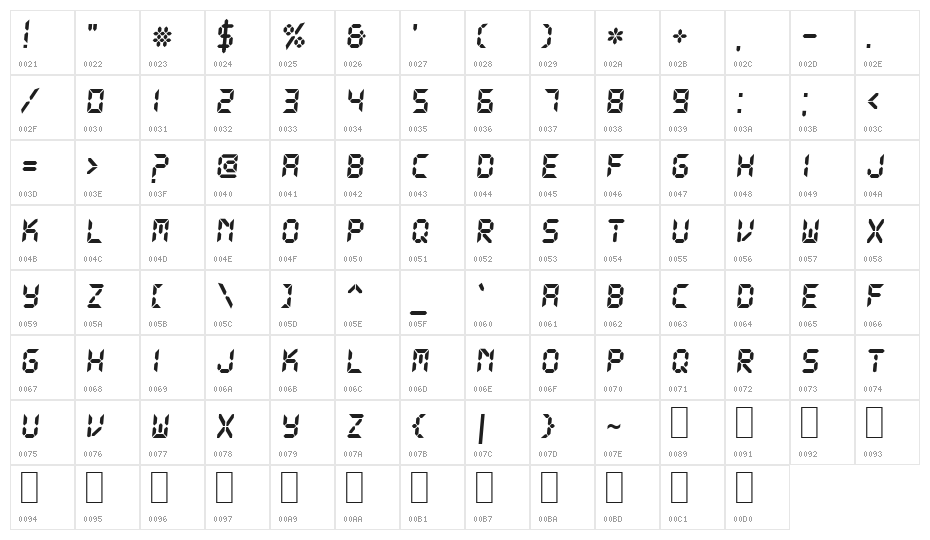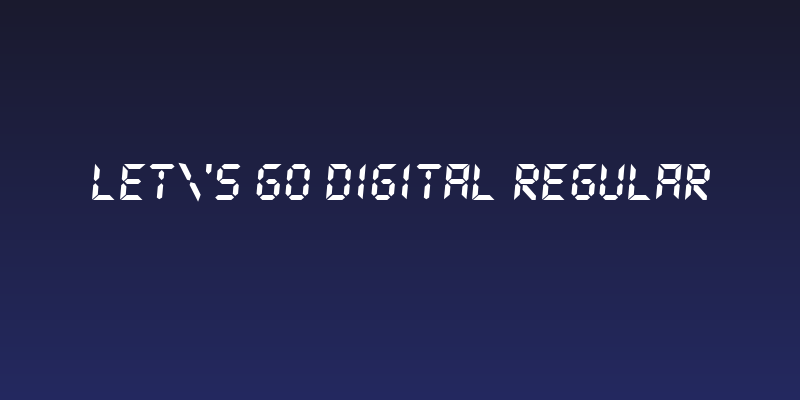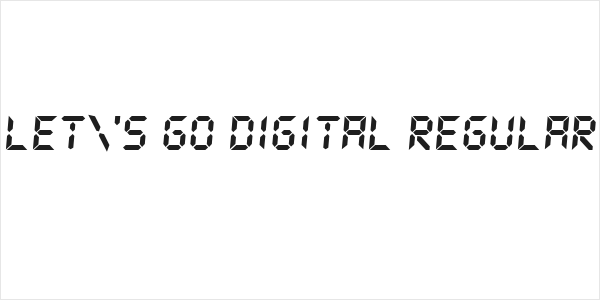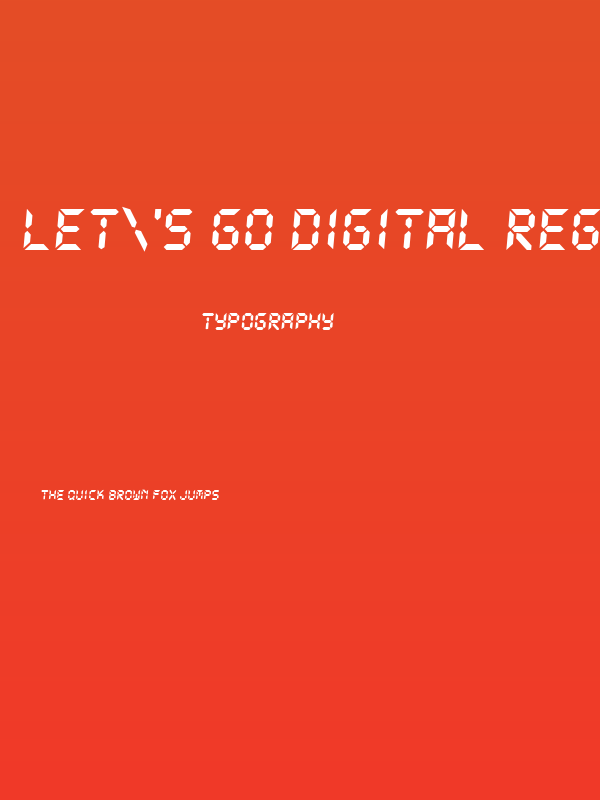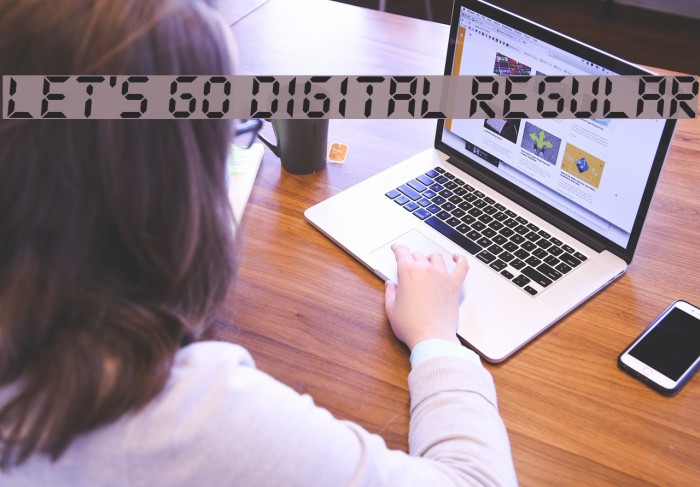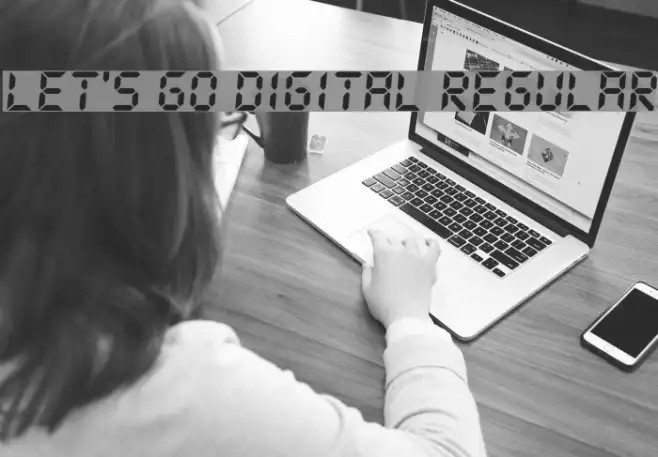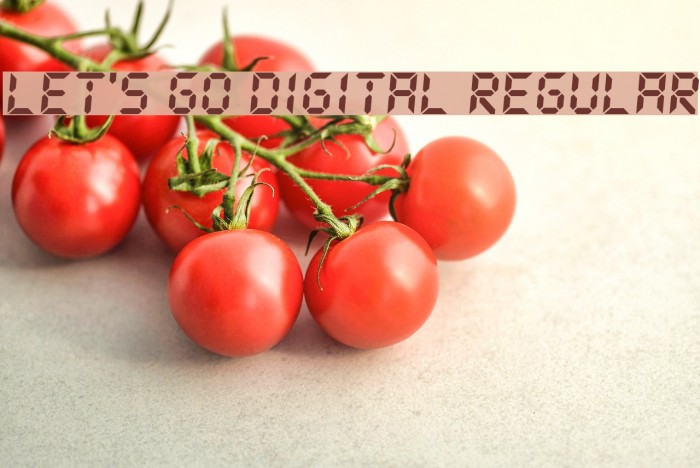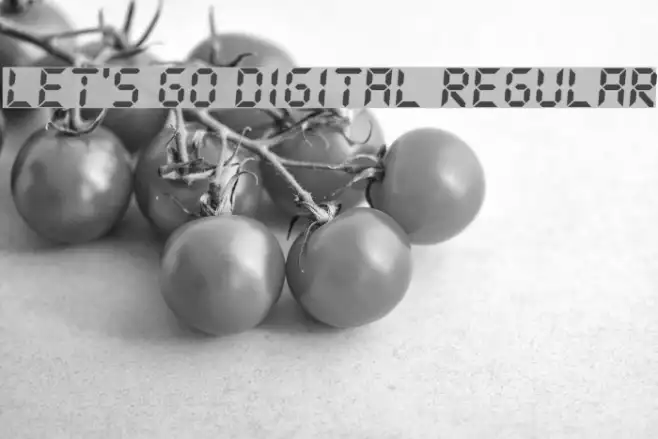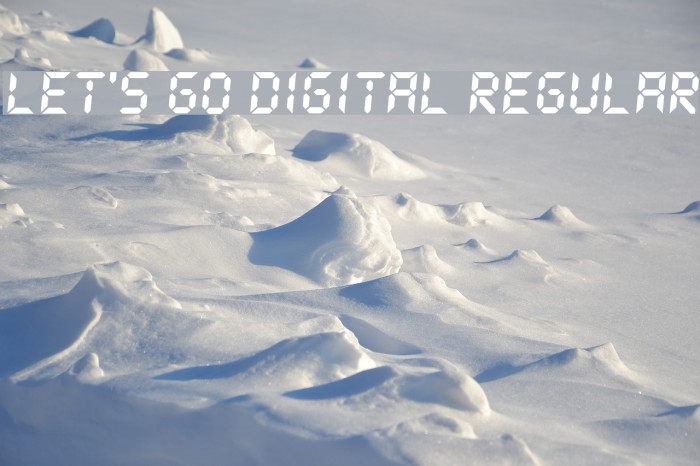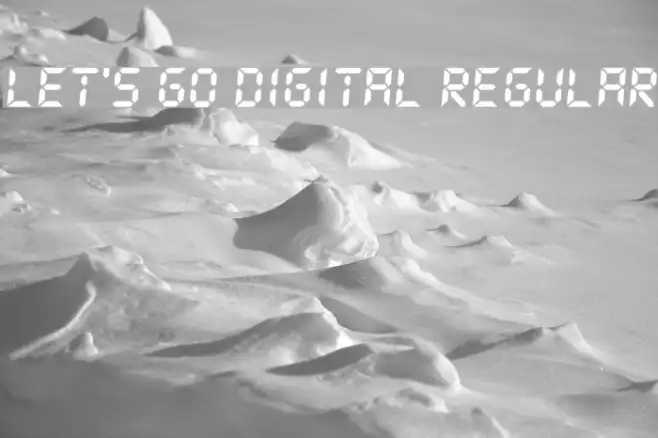
Let's go Digital Regular Font
Let's go Digital Regular Description
This font features a digital, futuristic style reminiscent of LED or LCD displays. Each character is composed of angular, geometric shapes that mimic the segmented look of digital clocks. The design is bold and striking, with a high-tech aesthetic that is both modern and functional. The uppercase and lowercase letters maintain a consistent style, while the numerals and special characters are crafted to match the overall digital theme. This font is ideal for projects that require a technological or contemporary feel, such as digital interfaces, tech branding, or futuristic designs.
| Proposed Projects | Ideal for digital interfaces, tech branding, futuristic designs, and electronic-themed projects. |